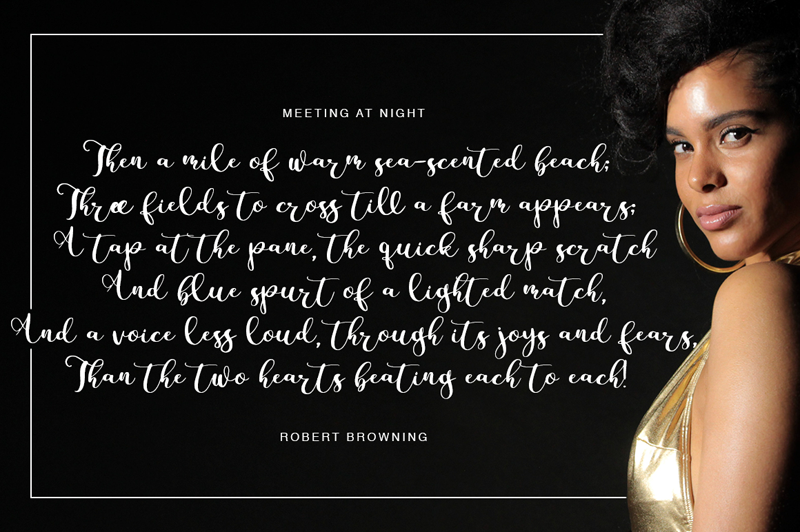
Font name: | Parabellum |
Author: | Alexander Tiunov |
Note by Alexander Tiunov | |
Parabellum - a new fresh handmade calligraphy font. Very suitable for greeting cards, branding materials, business cards, quotes, posters, and more!This font are perfect for wedding postcard. Or you can create perfect and unique design of your logo, blog, stationery, marketing, magazines and more :) Features : UpperCase & Lowercase Numerals & Punctuations Multilingualcharacters(A������C�D�E����I����N�O������U����WYݟ� ƌ��������������������������������) LIGATURES ZIP INCLUDED: Parabellum OTF Parabellum TTF Parabellum WOFF |